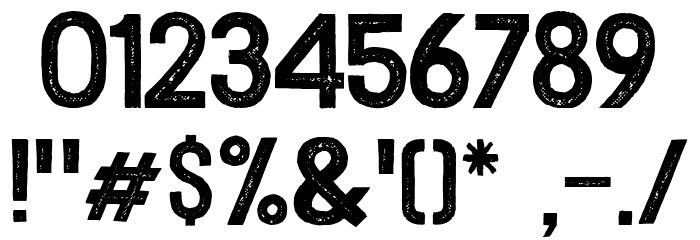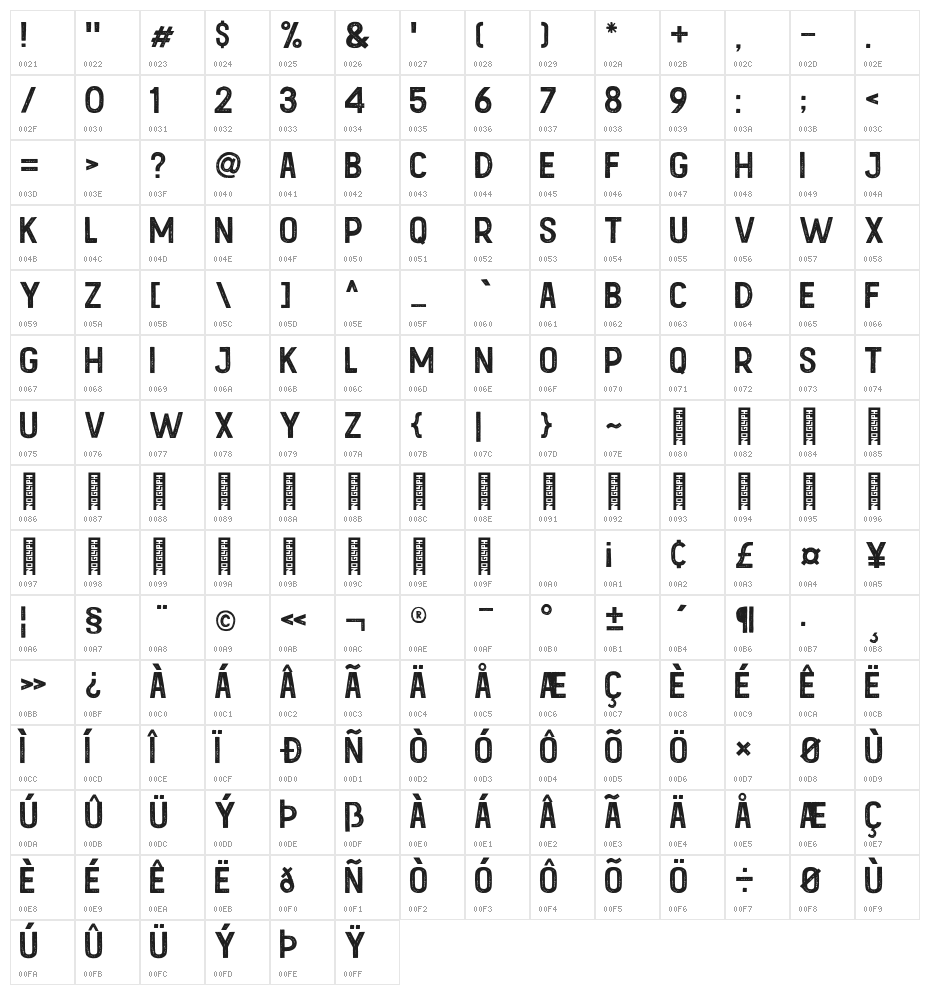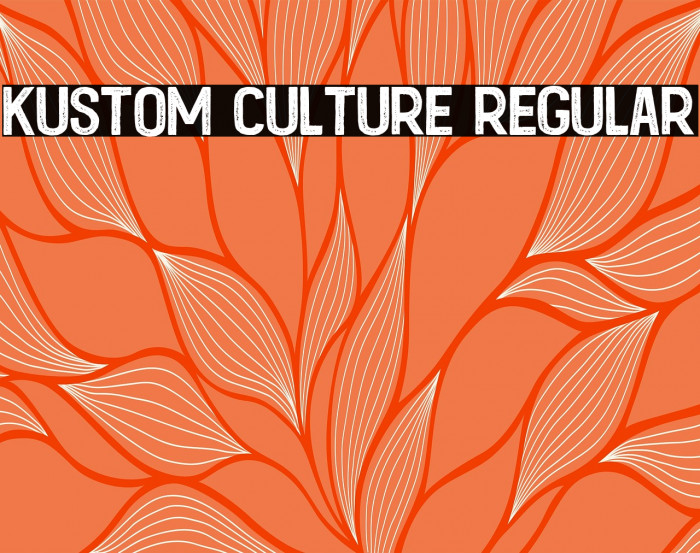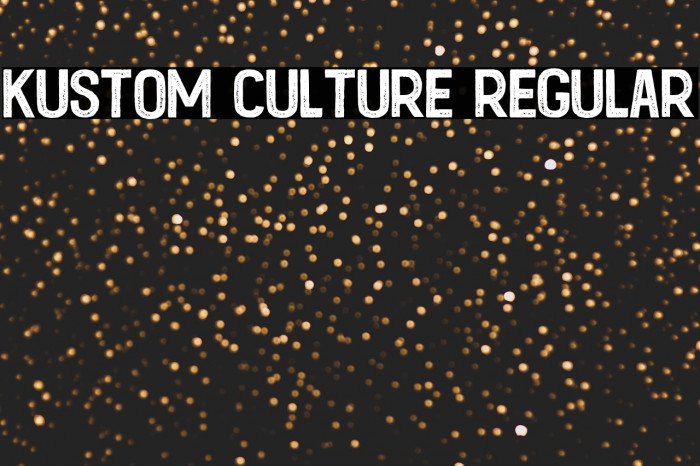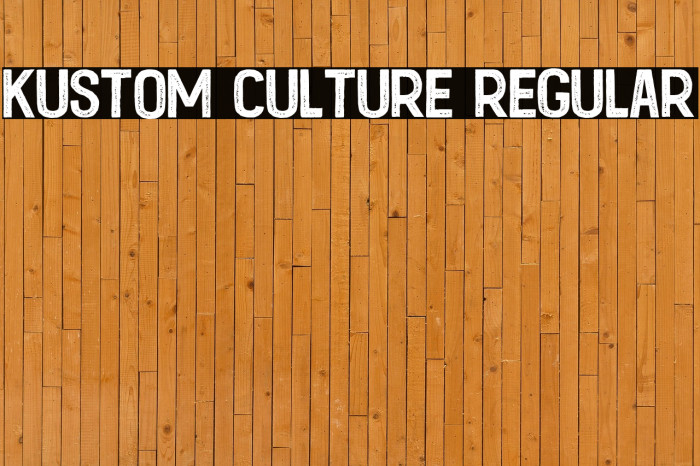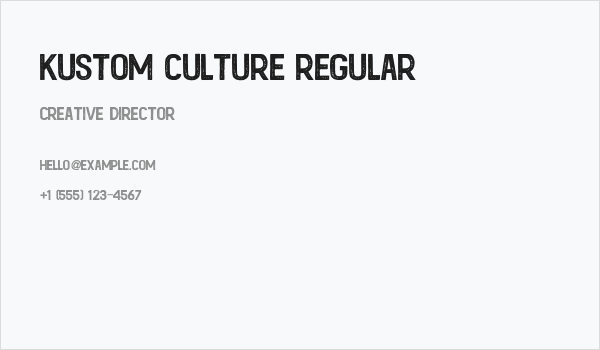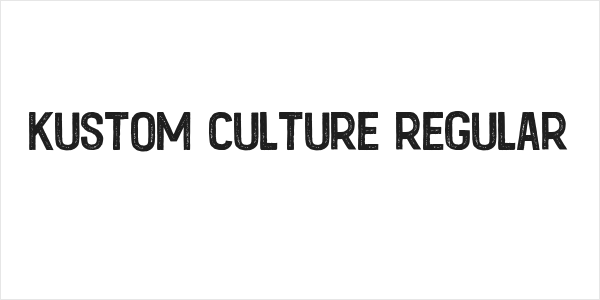
Kustom Culture Regular Font
Kustom Culture Regular Description
This font features a bold, distressed style with a textured appearance that gives it a rugged, vintage feel. The uppercase and lowercase letters maintain a consistent weight, providing a strong visual impact. The numbers and special characters follow the same design, ensuring uniformity across all glyphs. The texture adds a unique character, making it suitable for projects that require a touch of nostalgia or a handcrafted look. The overall design is both eye-catching and versatile, making it ideal for various creative applications.
| Proposed Projects | Ideal for branding, posters, apparel design, and any project needing a vintage or handcrafted aesthetic. |